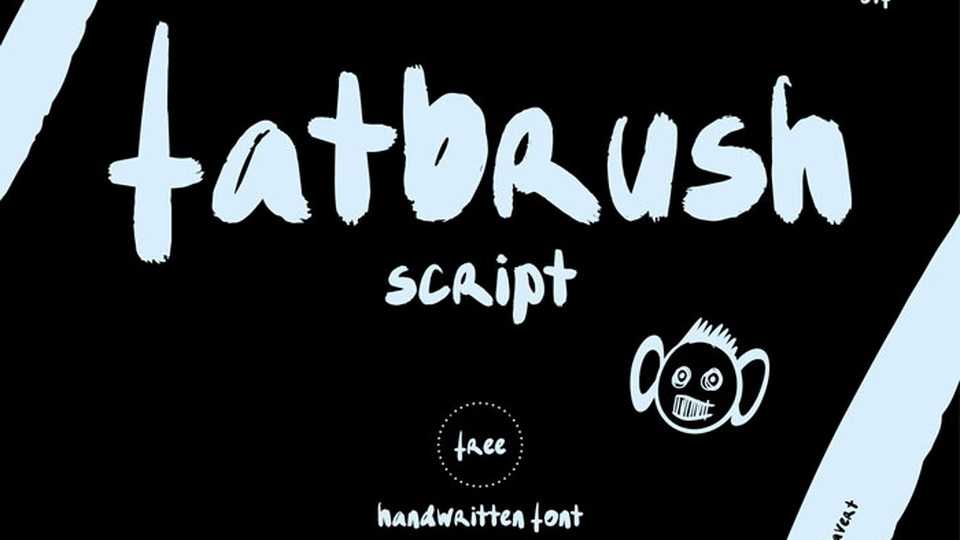
Download Fat Brush font, a unique and simple handwritten typeface with special characters. With its organic look Fat Brush font is perfect for hand lettering projects, greeting cards, typography work, posters, stamps, branding and so on.